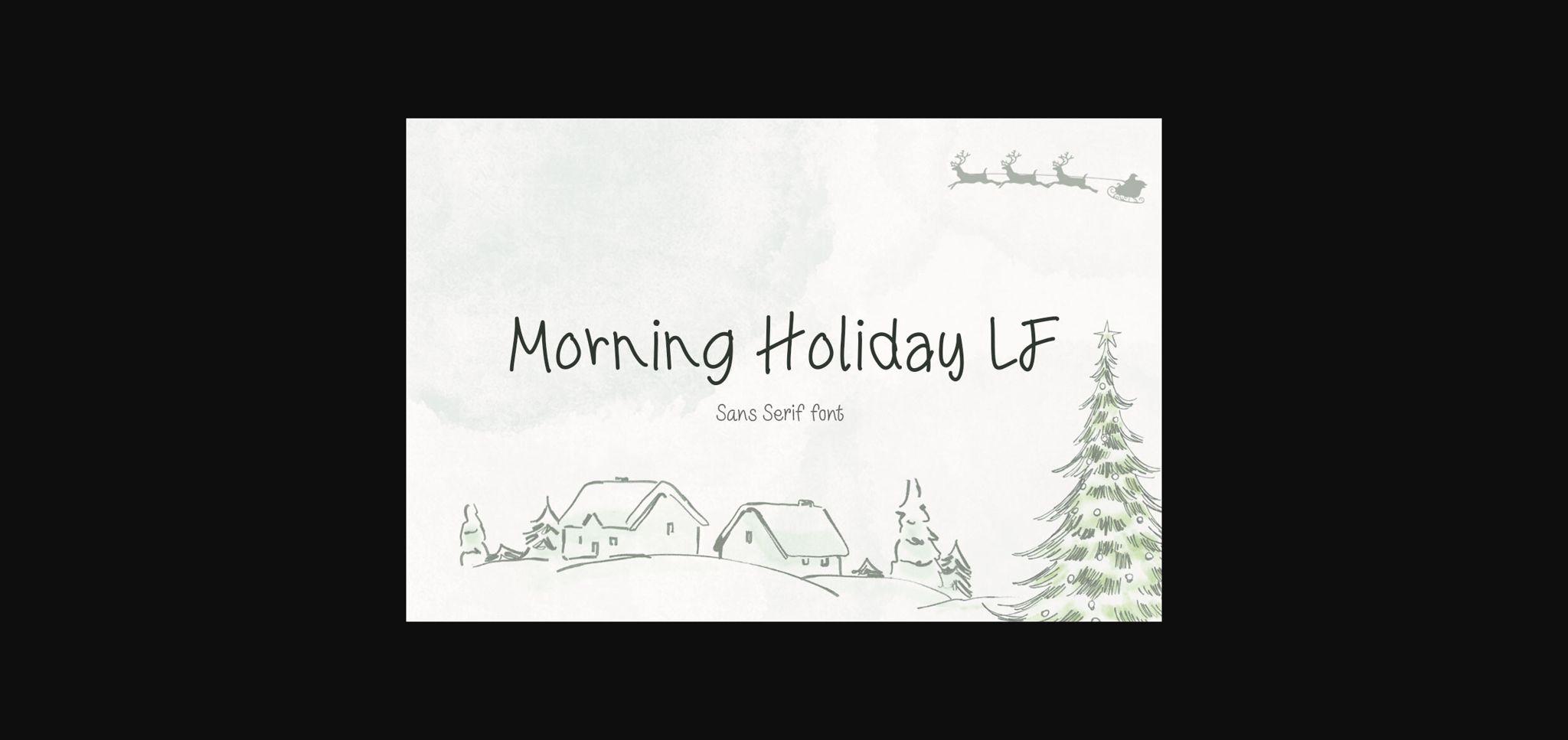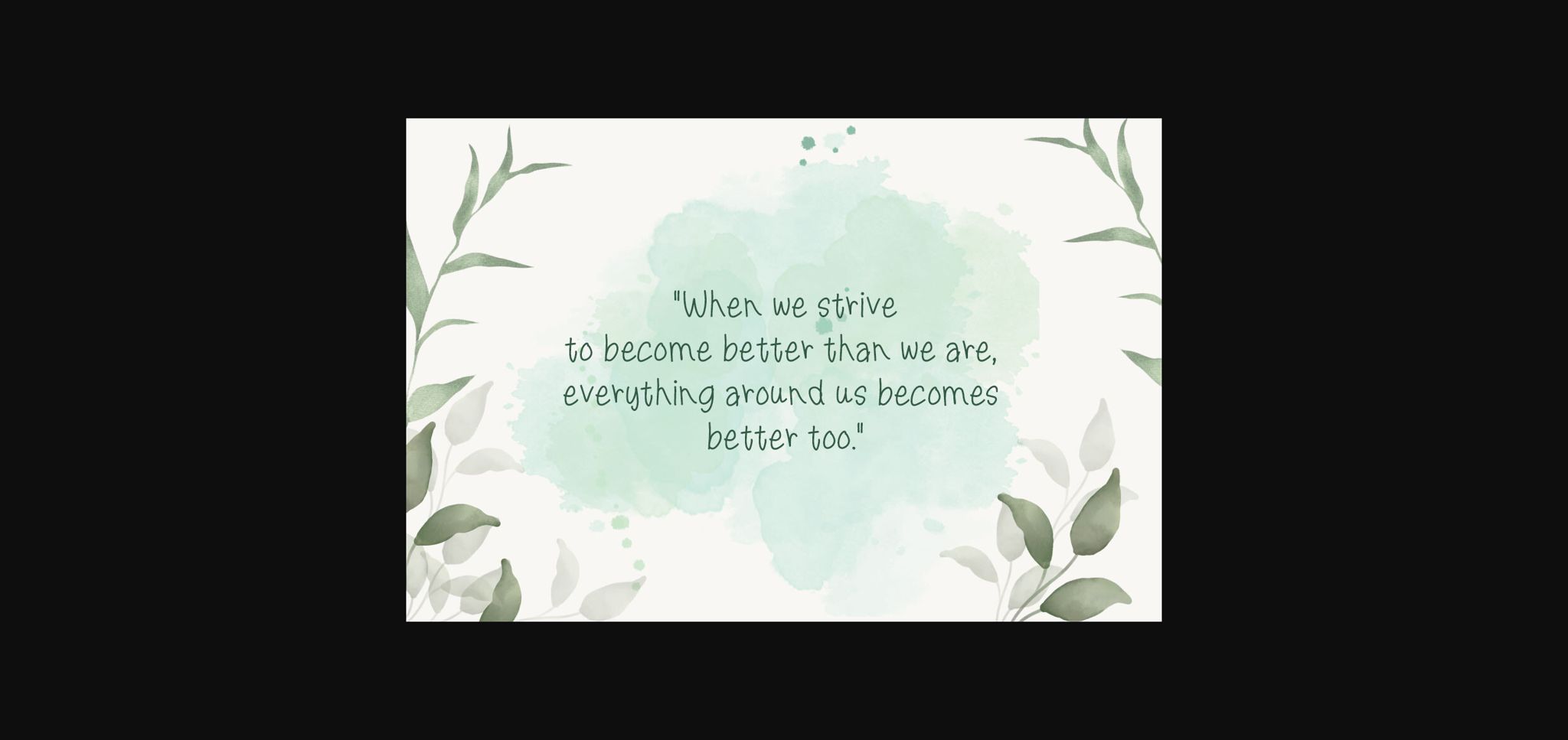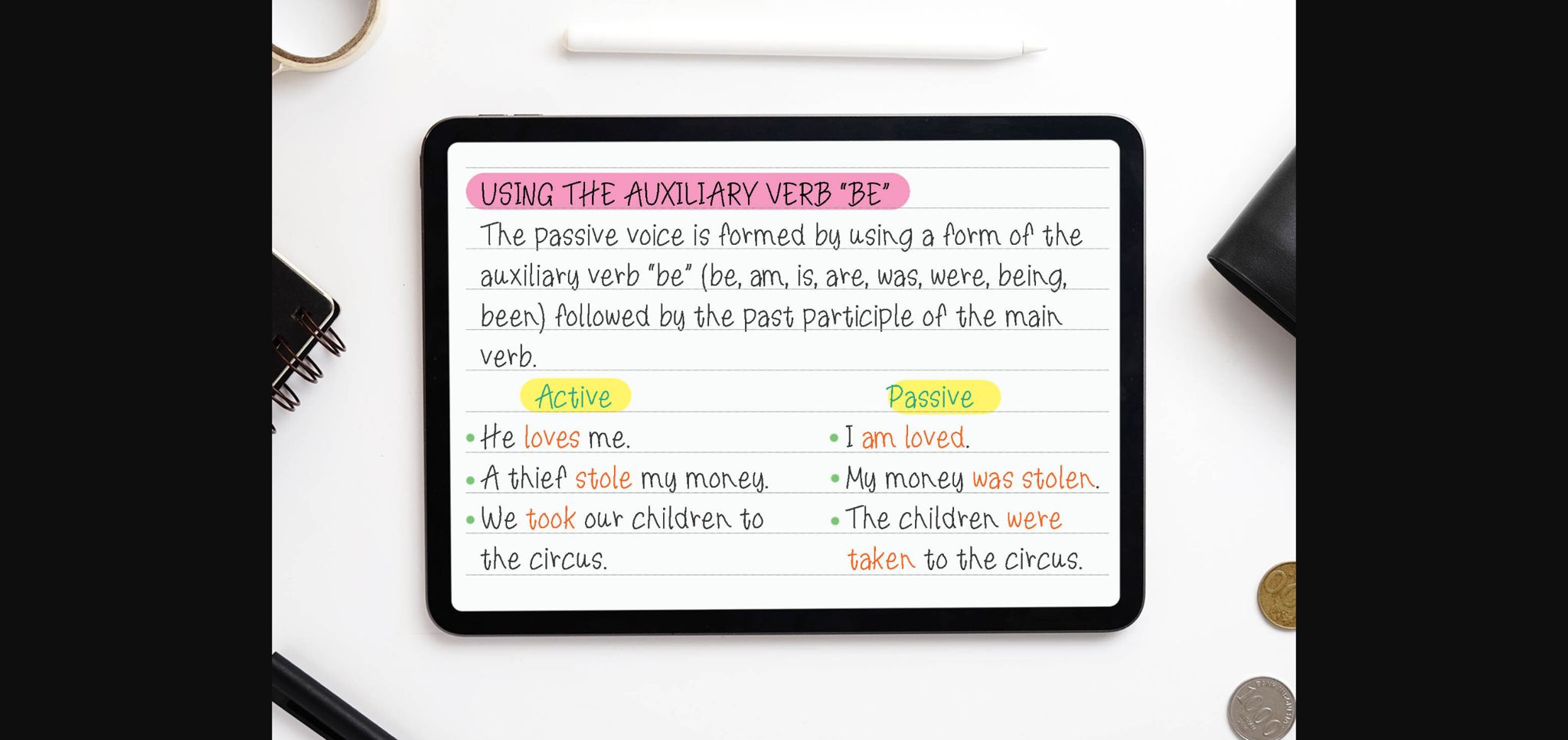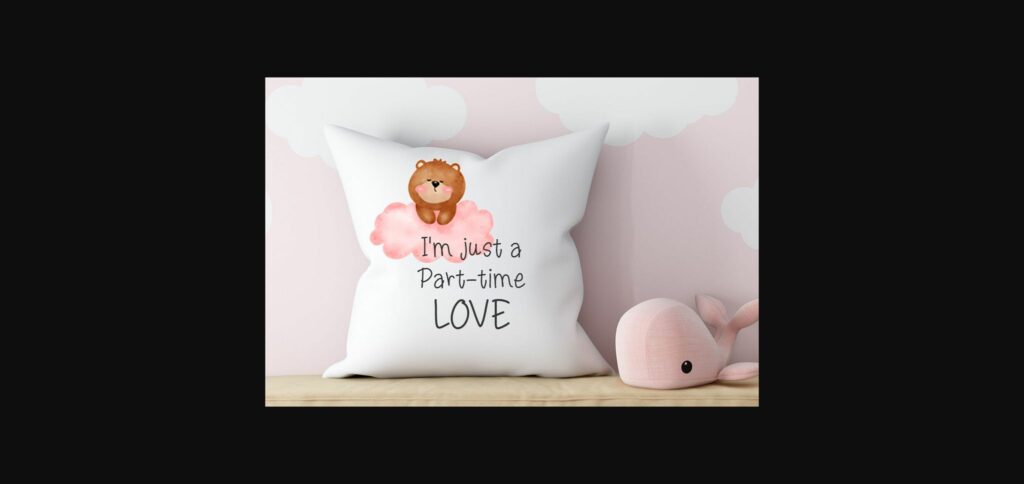
About Morning Holiday Lf Font
Morning Holiday LF is a cute, Good mood, playful and fun handwritten font. Its informal style and casual vibe will make this font a go-to. It would be awesome to your fun projects or diary planner, on wedding invitations, thank you cards, quotes, greeting cards, logos, posters, blogs, bag, T Shirt, clothing and other designs. choice for each of the creations that require a relaxed touch.